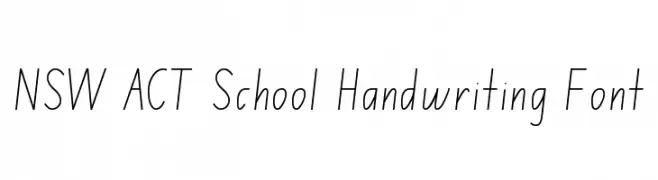
A clean, legible handwriting font ideal for educational materials.
A clean, legible handwriting font with smooth, flowing strokes.
A clean, slanted handwriting font ideal for educational use.
A clean, slanted handwriting font with a school script style.